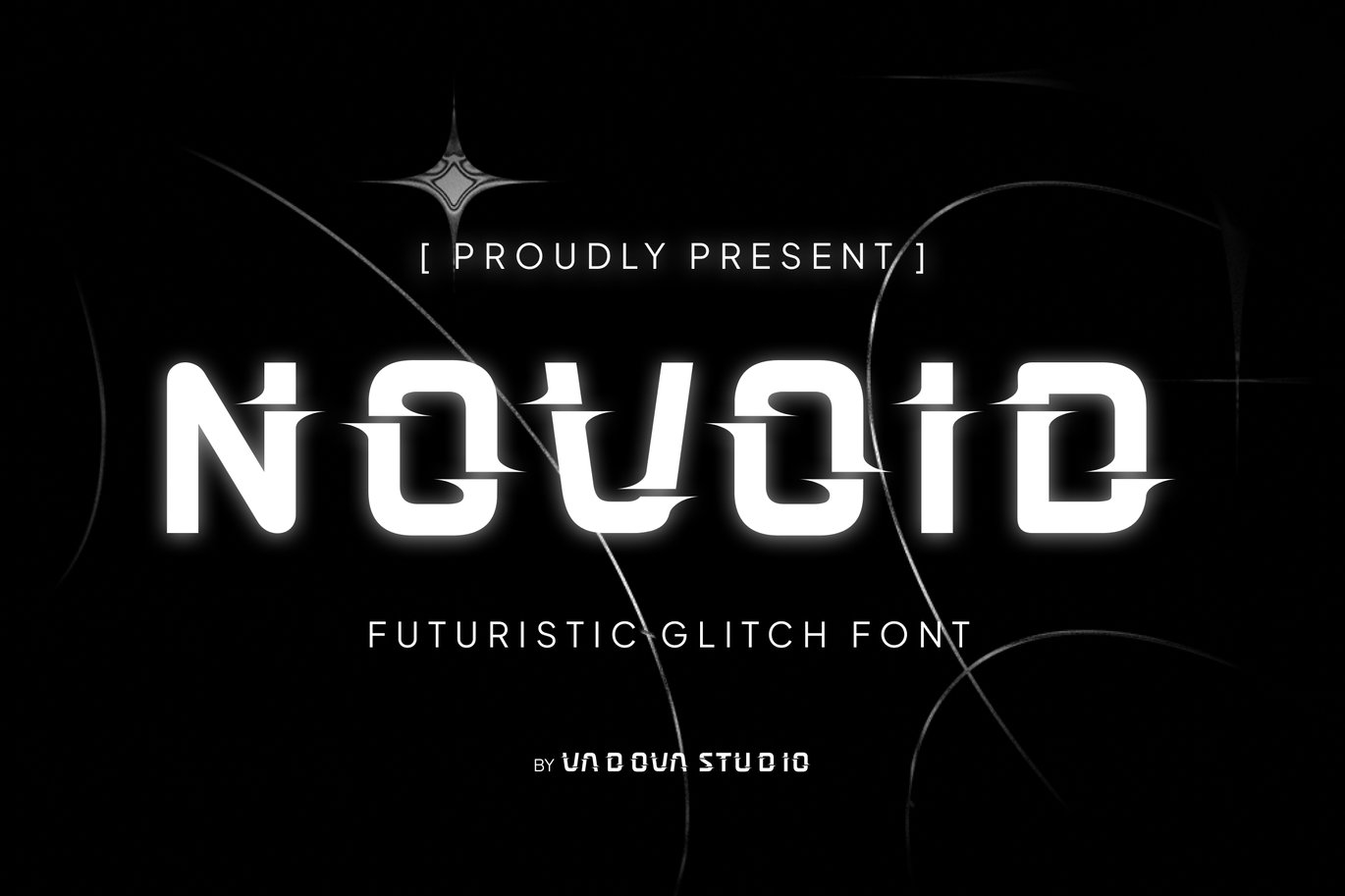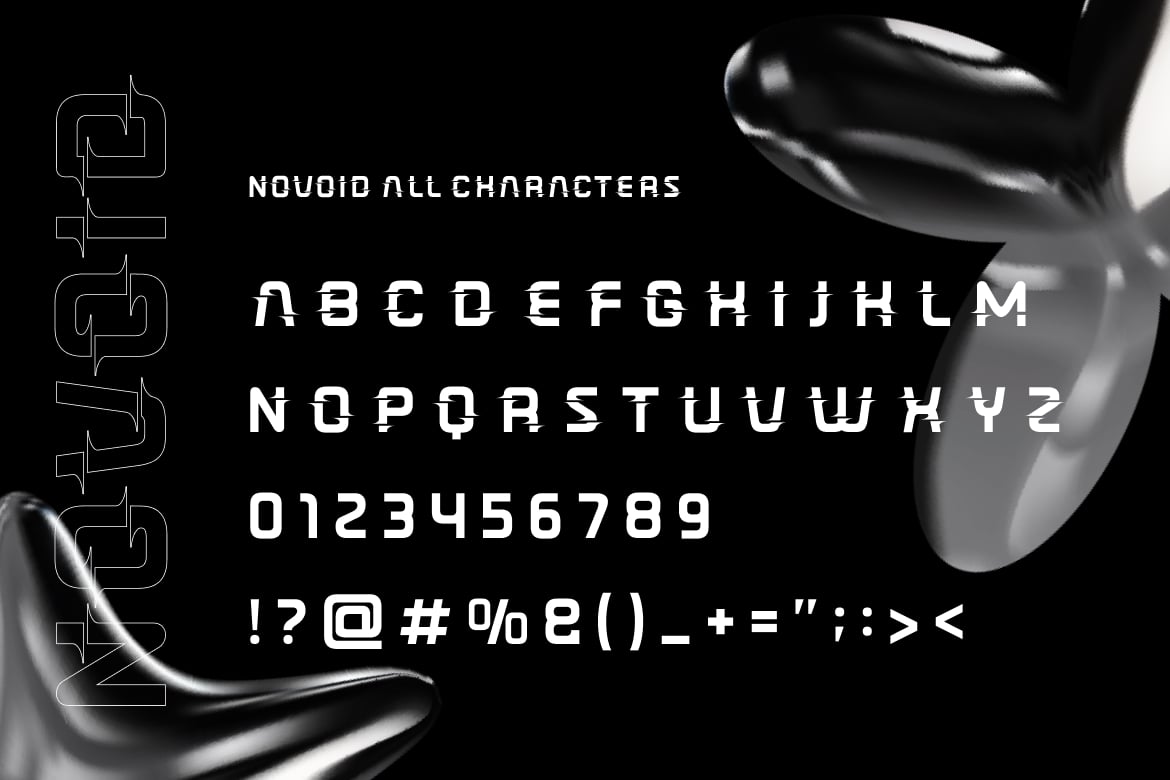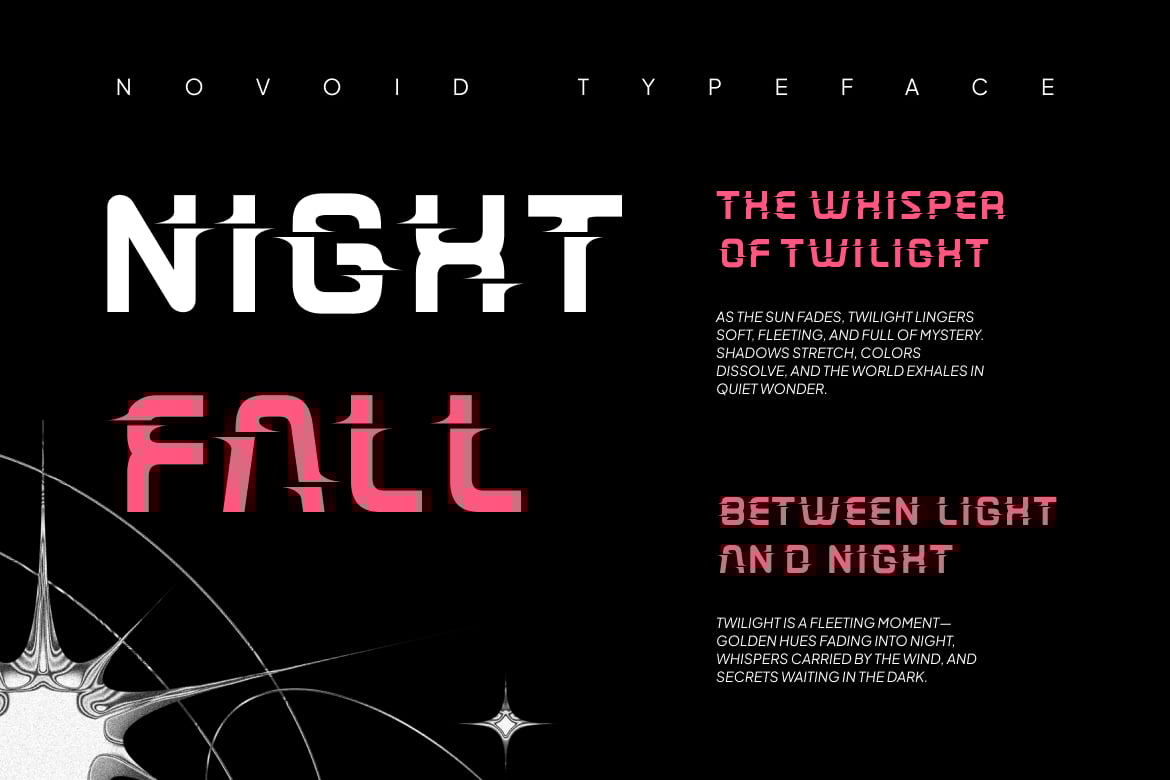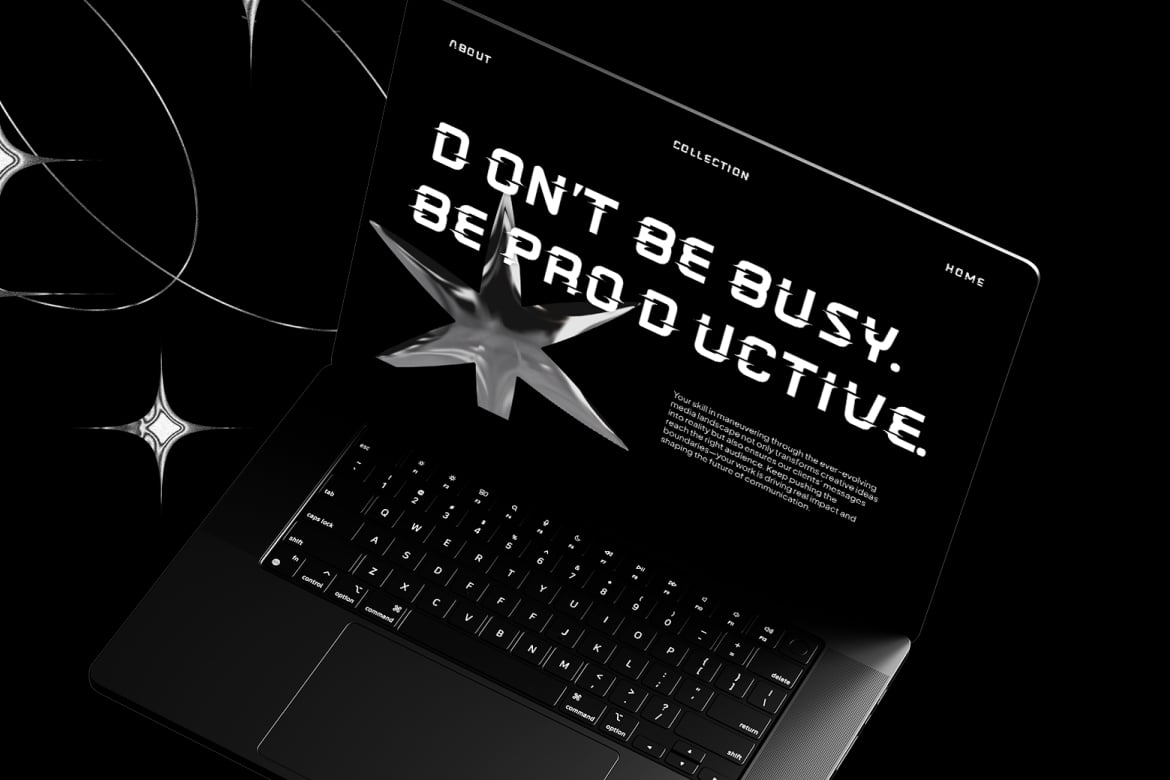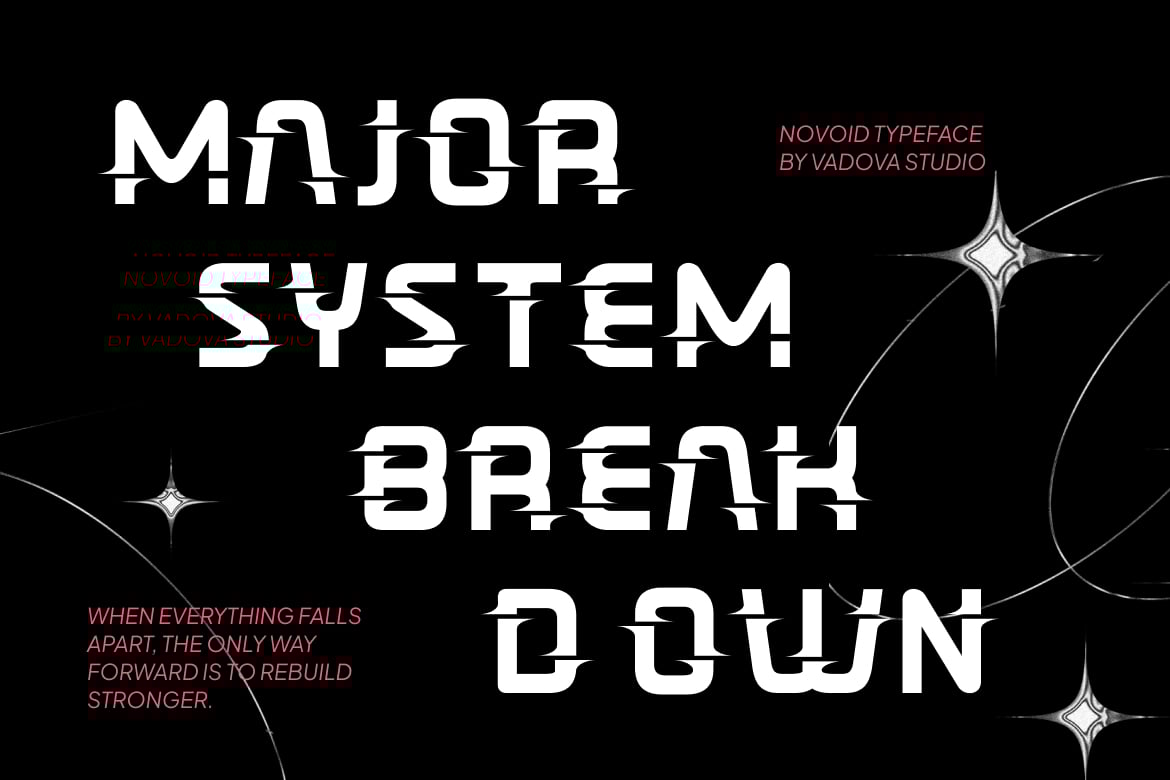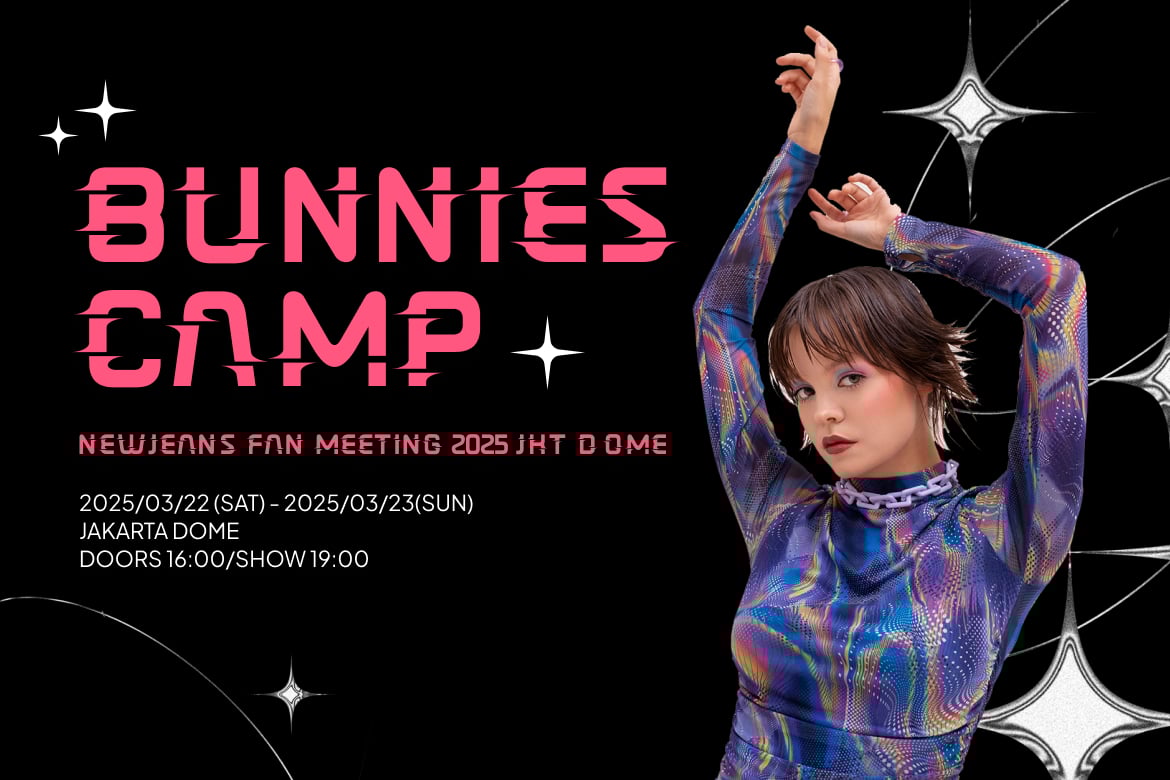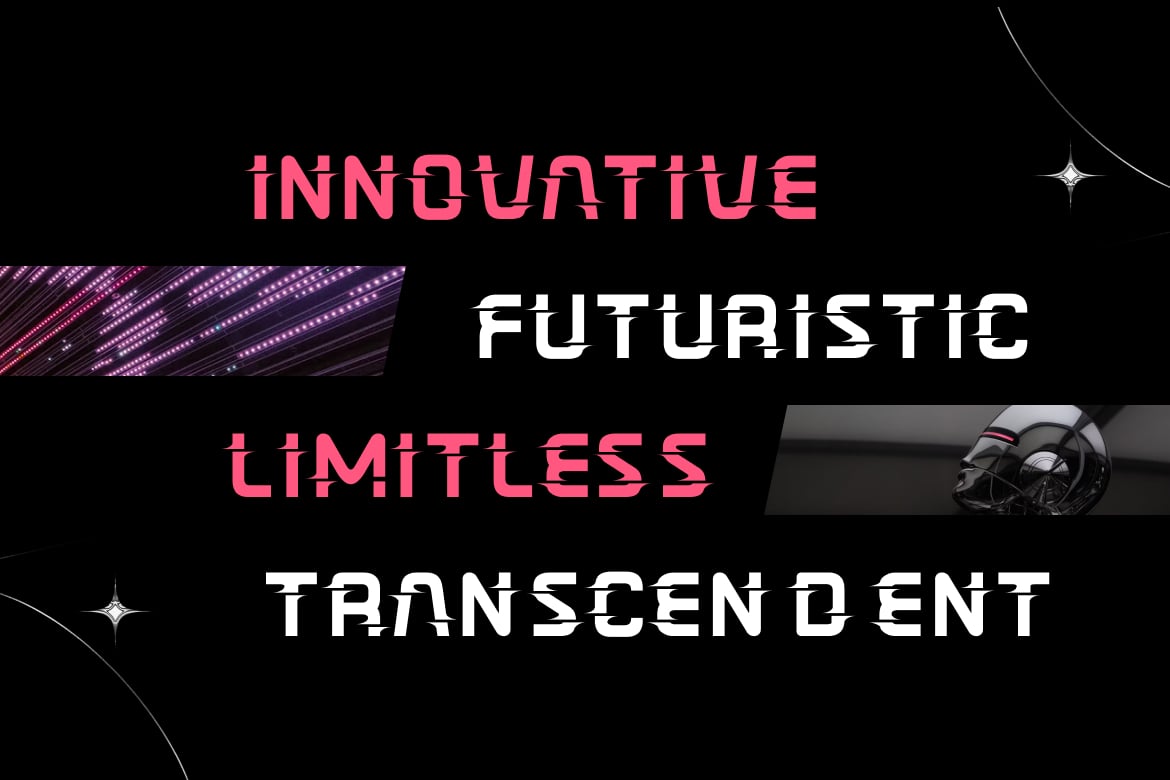
Norvoid Futuristic Glitch Font
Elevate your designs with Norvoid Futuristic Glitch Font, a futuristic glitch typeface that combines sharp digital aesthetics with bold sci-fi energy. Its broken and distorted letterforms evoke a sense of digital decay, making it perfect for cyberpunk designs, tech branding, experimental posters, and edgy music visuals. Novoid delivers a unique typographic voice that feels both chaotic and structured—ideal for projects that need a bold, high-tech, and rebellious style. With its strong visual presence, Novoid turns every word into a glitchy, futuristic statement.